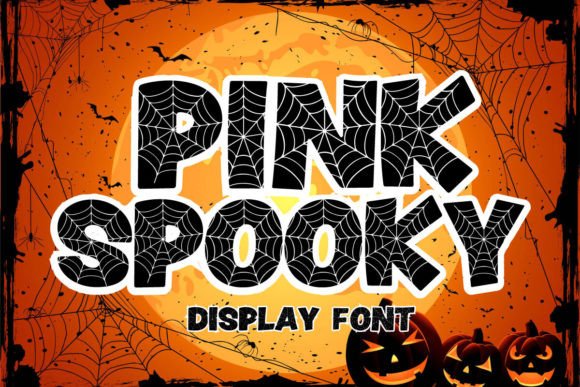
Pink Spooky Font: The Ultimate Guide to a Spooktacular Halloween Experience
As the spookiest time of the year approaches, designers, event planners, and Halloween enthusiasts are on the lookout for the perfect font to create eye-catching invitations, signs, and decorations. Look no further than the Pink Spooky Font, a bold, decorative font that embodies the spirit of Halloween with a playful twist. In this comprehensive guide, we’ll dive into the world of Pink Spooky Font, exploring its unique features, uses, and benefits.
What is Pink Spooky Font?
Pink Spooky is a bold, decorative font designed with a Halloween theme in mind. What sets it apart is the intricate spider web design inside each letter, giving it a creepy yet fun look that’s perfect for the spookiest time of the year. The font’s bold and playful design makes it an excellent choice for creating attention-grabbing Halloween party invitations, spooky signs, and other Halloween-themed materials.
Unique Features of Pink Spooky Font
• Spider Web Design: Each letter features an intricate spider web design, adding a creepy and eerie feel to your Halloween-themed designs.
• Bold and Playful: The font’s bold design ensures that your text stands out, while the pink color adds a playful touch that’s perfect for Halloween.
• Halloween Theme: The font’s Halloween theme makes it an excellent choice for creating spooky and festive designs.
Uses of Pink Spooky Font
Pink Spooky Font is an incredibly versatile font that can be used in a variety of ways to create spooktacular Halloween designs. Here are some ideas to get you started:
• Halloween Party Invitations: Create eye-catching invitations that set the tone for a spooktacular Halloween party.
• Spooky Signs: Use Pink Spooky Font to create attention-grabbing signs that add a touch of Halloween spirit to your decorations.
• Halloween-themed Decorations: Use the font to create festive decorations, such as banners, garlands, and other Halloween-themed materials.
Benefits of Using Pink Spooky Font
So, why choose Pink Spooky Font for your Halloween designs? Here are some benefits of using this unique font:
• Attention-Grabbing: The font’s bold design and spider web details are sure to grab attention and add a touch of Halloween spirit to your designs.
• Playful and Spooky: The pink color and spider web design strike the perfect balance between playful and spooky, making it an excellent choice for Halloween designs.
• Easy to Use: The font is easy to use and can be incorporated into a variety of design projects, from invitations to signs and decorations.
Tips for Using Pink Spooky Font
To get the most out of Pink Spooky Font, here are some tips to keep in mind:
• Use it Sparingly: While the font is attention-grabbing, it’s best to use it sparingly to avoid overwhelming your design.
• Pair it with Other Fonts: Consider pairing Pink Spooky Font with other fonts to create a unique and visually appealing design.
• Experiment with Colors: While the pink color is a key part of the font’s design, don’t be afraid to experiment with other colors to create a unique look.
Pink Spooky Font is a unique and versatile font that’s perfect for creating spooktacular Halloween designs. With its bold design, spider web details, and playful pink color, it’s an excellent choice for Halloween party invitations, spooky signs, and other Halloween-themed materials. By incorporating Pink Spooky Font into your designs, you’ll add a touch of Halloween spirit that’s sure to grab attention and delight your audience.
• What is Pink Spooky Font? Pink Spooky Font is a bold, decorative font with a Halloween theme and spider web design inside each letter.
• What is Pink Spooky Font used for? Pink Spooky Font is perfect for creating Halloween party invitations, spooky signs, and other Halloween-themed materials.
• Is Pink Spooky Font easy to use? Yes, Pink Spooky Font is easy to use and can be incorporated into a variety of design projects.